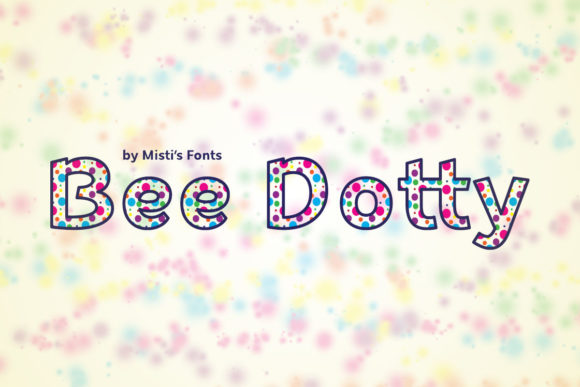
Unleash your creativity and inject a splash of vibrancy into your designs with Bee Dotty Font, the ultimate color font that exudes playfulness and authenticity.
Immerse yourself in a world of polka dots, where whimsical patterns dance and colors ignite your imagination. Bee Dotty is not just a font; it's an invitation to explore a realm of endless possibilities.
Picture this: your designs transformed with Bee Dotty's playful charm. Create children's activity books that come alive with joy, school projects that burst with personality, and social media posts that captivate your audience.
With Bee Dotty, you can effortlessly add a touch of whimsy and authenticity to any project. It's the perfect choice for creating eye-catching logos, cheerful invitations, and delightful packaging designs.
But Bee Dotty isn't just aesthetically pleasing; it's also incredibly versatile. Use it to design vibrant posters, captivating presentations, and stunning website headers. Each letter dances off the page, demanding attention and leaving a lasting impression.
Imagine the smiles on children's faces as they embark on a reading adventure with Bee Dotty's playful characters adorning the pages. Or envision the excitement of receiving a handwritten note adorned with Bee Dotty's cheerful polka dots. It's a font that sparks joy and ignites the imagination.
Step into a world of endless creativity with Bee Dotty Font. Let your designs bloom with color, let your imagination soar, and experience the magic of polka dots. Create something extraordinary today!